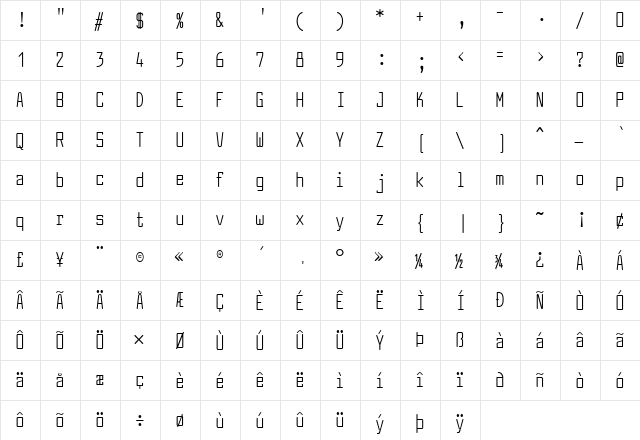
Larabiefont Compressed Regular
Design Context for Larabiefont Compressed Typeface
Larabiefont Compressed takes a measured approach to typography — its balanced proportions and neutral character make it a reliable workhorse for both digital and print work.